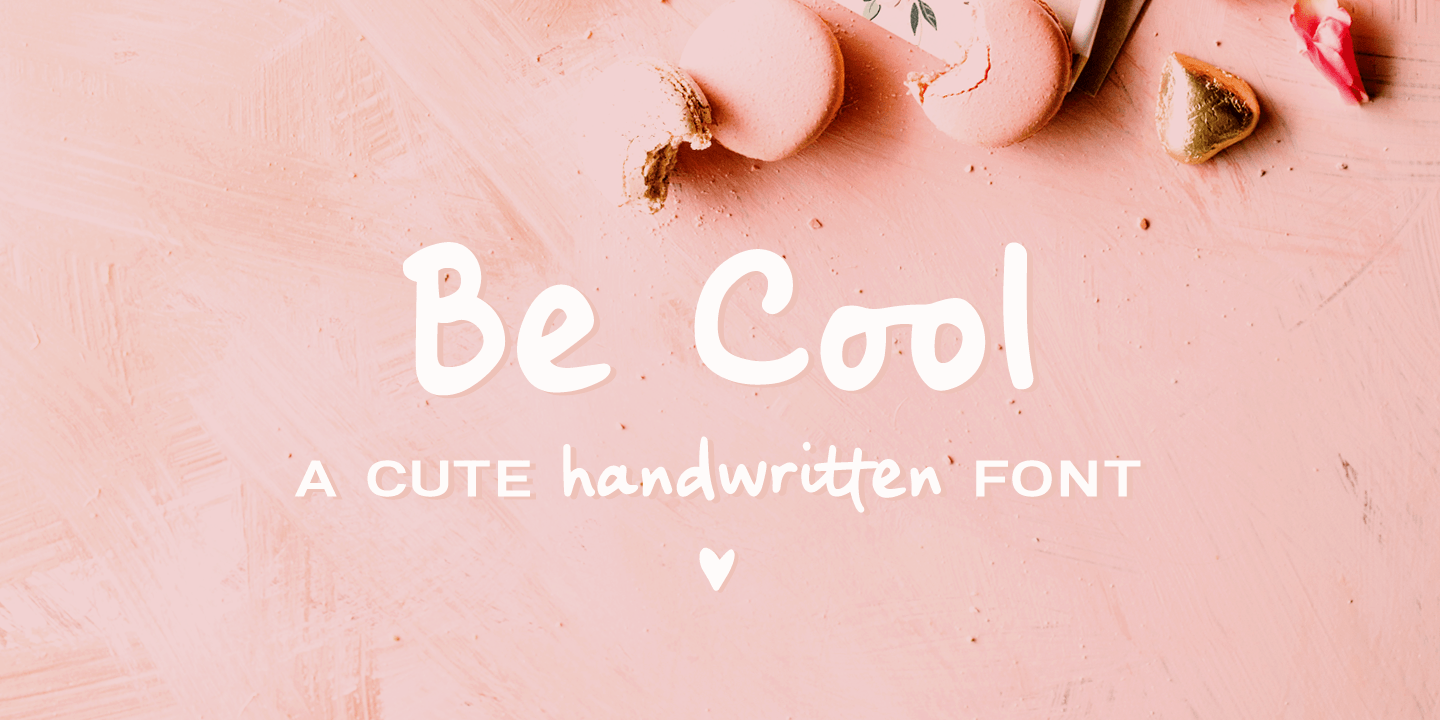
Be Cool Font is perfect for trendy youth branding, modern lifestyle magazines, hip social media campaigns, contemporary fashion labels, cool tech startups, urban entertainment venues, stylish product packaging, and effortless designs that require laid-back sophistication and modern coolness.
This font is exciting because it effortlessly captures the essence of contemporary cool through its relaxed yet stylish letterforms that embody the confidence of modern urban culture. The smooth character design reflects the perfect balance of casual attitude and sophisticated style, making it ideal for brands seeking to connect with trend-conscious audiences who value authenticity and effortless appeal.
Be Cool Font belongs to the modern casual font family, featuring contemporary styling and urban elements that enhance its effectiveness for lifestyle and youth-focused design applications.
Whether you're creating trendy lifestyle branding or contemporary urban graphics, Be Cool Font Free Download delivers maximum style and effortless appeal. This typeface perfectly captures the spirit of modern coolness while maintaining excellent functionality for diverse applications. The font's smooth presence works beautifully in social media content, lifestyle communications, and trendy marketing materials, providing excellent readability while maintaining its cool character that transforms any design with contemporary sophistication and creates memorable brand experiences across all media platforms and modern lifestyle communications.